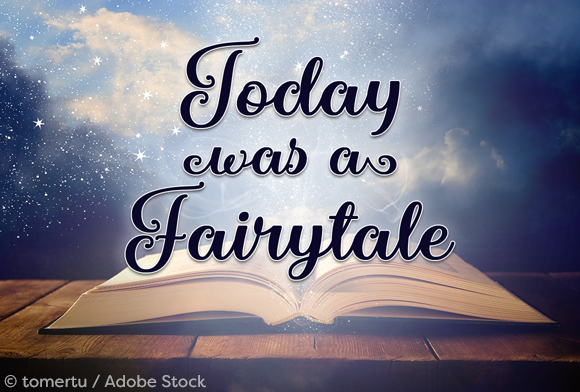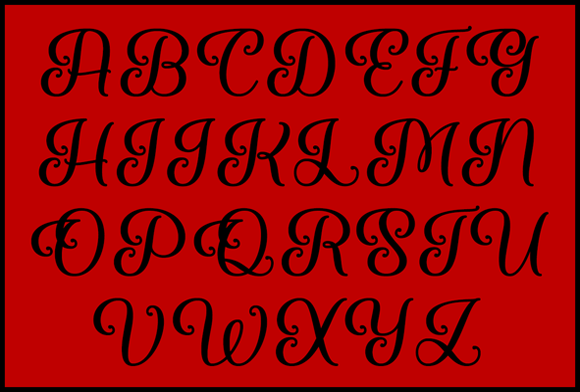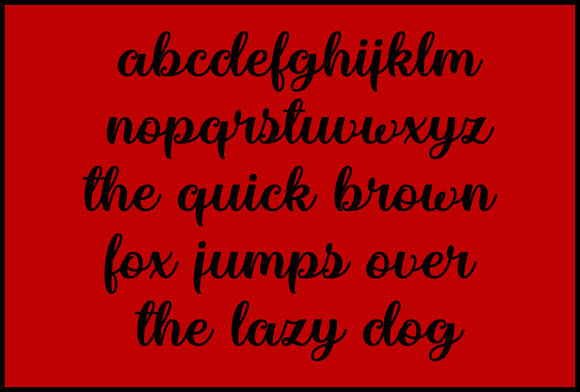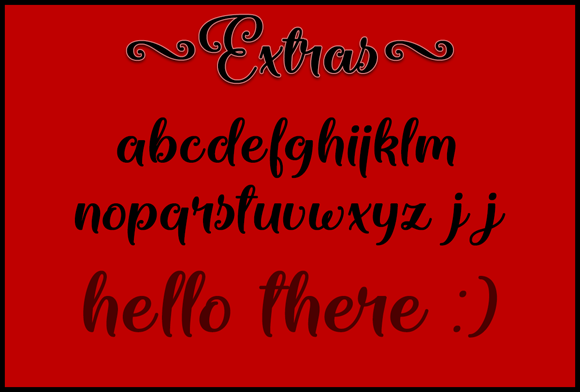
Marienkaefer Font
About Marienkaefer Font
Marienkaefer is a charming calligraphy typeface that will add a touch of elegance to your projects. Perfect for wedding invites, logos, product labels, and so much more!